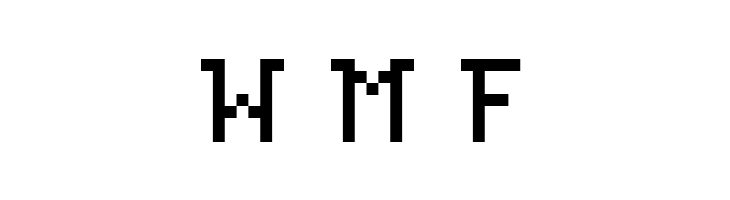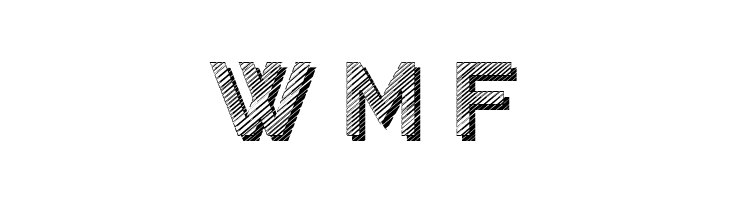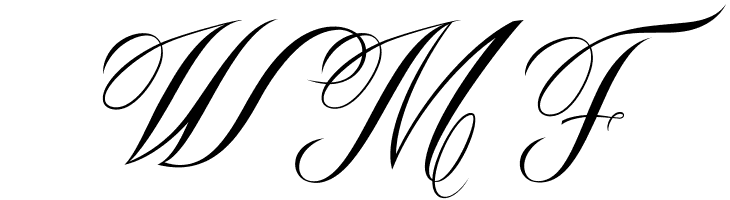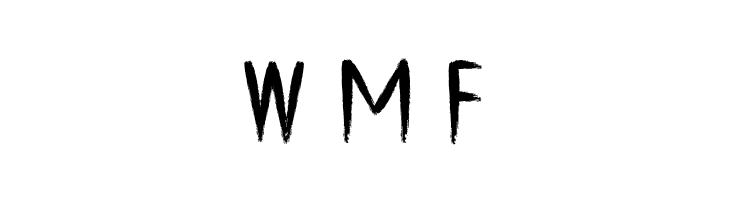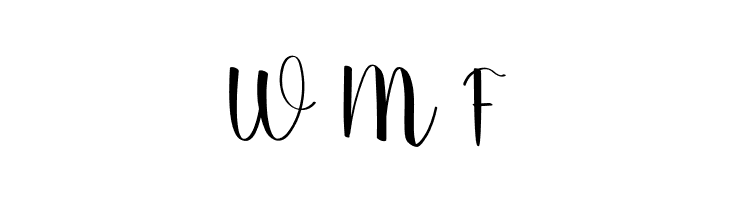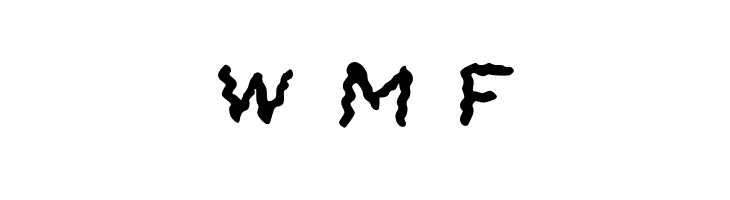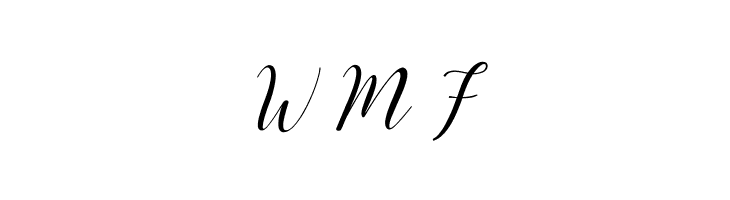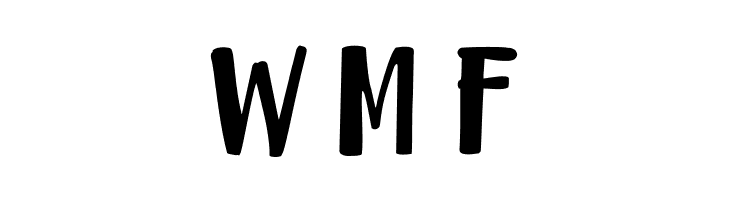
A bold, modern script font with interconnected characters and a dynamic flow.
A bold, slanted font with thick strokes and a dynamic style.
A modern, interconnected script font with a chain-like appearance.
A modern, script-inspired font with smooth, flowing lines and a slightly condensed style.
A bold, decorative font with a three-dimensional shadow effect.
A dynamic and fluid script font with elegant, flowing letterforms.
A hand-drawn, chalk-like font with textured, dynamic strokes.
A bold, playful font with rounded edges, perfect for casual and inviting designs.
A playful, textured font with a chalkboard-inspired design.
A playful, hand-drawn font with a chalk-like, informal style.
An elegant script font with fluid, cursive strokes and sophisticated design.
A playful, bold font with rounded, smooth curves and a friendly appearance.
A bold, handwritten-style font with dynamic, slanted characters.
A bold, playful font with rounded, hand-drawn characters.
A playful and elegant handwritten script font with dynamic curves.
A bold, wavy, hand-drawn style font with an organic, playful appearance.
An elegant, cursive script font with a flowing, handwritten style.
An elegant script font with flowing, high-contrast strokes and ornate flourishes.
An elegant script font with flowing, cursive letterforms and sophisticated style.
An elegant, flowing script font with graceful curves and loops.
A pixelated, retro-style font with a blocky, digital appearance.
A vintage, handcrafted font with bold, irregular strokes and playful numerals.
A whimsical collection of hand-drawn, illustrative symbols with a vintage, folkloric style.
A classic, cursive font with elegant, calligraphic influences and dynamic stroke contrast.
A vintage, handcrafted font with a rustic and artistic style.
A bold, rounded font with smooth curves and a modern, playful style.
A bold, outlined font with a playful and modern design.
A playful, outlined font with a bold, rounded style and consistent stroke width.
A bold, playful, and decorative font with thick, rounded strokes and whimsical curves.
A playful, bold font with thick outlines and a hand-drawn, cartoonish style.
A playful, bold font with a distinctive shadow effect and rounded, inflated characters.